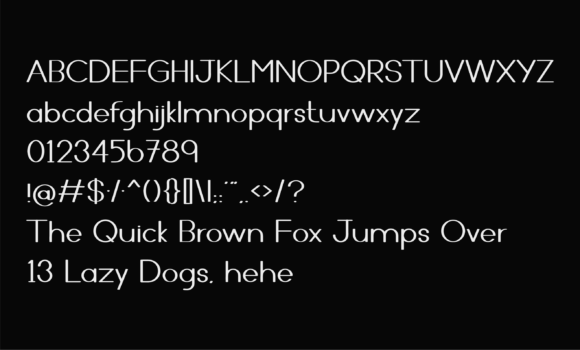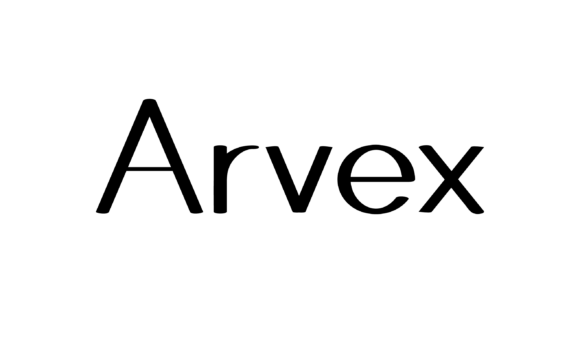
Introducing Arvex Font: The Ultimate Sans-Serif Typeface for Modern Design
In the world of typography, a font can make or break a design. With the ever-evolving landscape of digital and print media, designers and crafters are constantly on the lookout for typefaces that can elevate their work and leave a lasting impression. Meet Arvex, a revolutionary sans-serif font that is redefining the standards of modern design. Crafted with precision and creativity, Arvex is the perfect blend of style, functionality, and adaptability.
The Birth of Arvex: A Story of Innovation and Excellence
Arvex is more than just a font – it’s a design statement. Born out of a passion for innovation and a keen eye for detail, Arvex is the brainchild of skilled typographers who sought to create a typeface that would surpass the expectations of designers and crafters alike. With its flawless lines, stylishly formed arches, and fluid curves, Arvex embodies a modern and audacious aesthetic that is sure to turn heads.
Key Features of Arvex: Unmistakable Clarity and Perfect Harmony
So, what sets Arvex apart from other sans-serif typefaces? Here are some of its key features:
- Unmistakable Clarity: Arvex boasts remarkable legibility, making it perfect for use in a wide range of applications, from branding and logos to UI designs and digital projects.
- Perfect Harmony: The font’s carefully crafted letterforms and precise spacing ensure a seamless reading experience, making it ideal for long-form content and body text.
- Infinite Adaptability: Arvex is designed to be versatile, with a range of weights and styles that can be used in various contexts, from headlines and titles to body text and captions.
Design Applications: Elevate Your Branding, Logos, and UI Designs
Arvex is a font that can elevate any design project. Here are some ways you can deploy Arvex to take your work to the next level:
- Branding and Logos: Use Arvex to create striking logos and brand identities that exude modernity and sophistication.
- UI Designs: Arvex’s clean lines and precise spacing make it perfect for use in UI designs, such as mobile apps, websites, and digital products.
- Packaging and Digital Projects: Add a touch of sleekness and contemporary style to your packaging and digital projects with Arvex.
The Benefits of Using Arvex: Why Designers and Crafters Love This Font
Arvex has quickly become a favorite among designers and crafters, and for good reason. Here are some benefits of using Arvex:
- Remarkable Legibility: Arvex’s clear and precise letterforms ensure that your message is conveyed with clarity and precision.
- Bold and Business-Like Demeanor: Arvex exudes confidence and professionalism, making it perfect for use in business and corporate designs.
- Endless Creative Possibilities: With its range of weights and styles, Arvex offers endless creative possibilities for designers and crafters.
Conclusion: Experience the Power of Arvex Font
In conclusion, Arvex is a game-changing sans-serif typeface that is redefining the standards of modern design. With its unmistakable clarity, perfect harmony, and infinite adaptability, Arvex is the perfect choice for designers and crafters looking to elevate their work and leave a lasting impression. Whether you’re working on a branding project, UI design, or digital product, Arvex is the ultimate font for adding a touch of modernity and sophistication.
| Font Name | Arvex Font |
| Author | Uzairr |